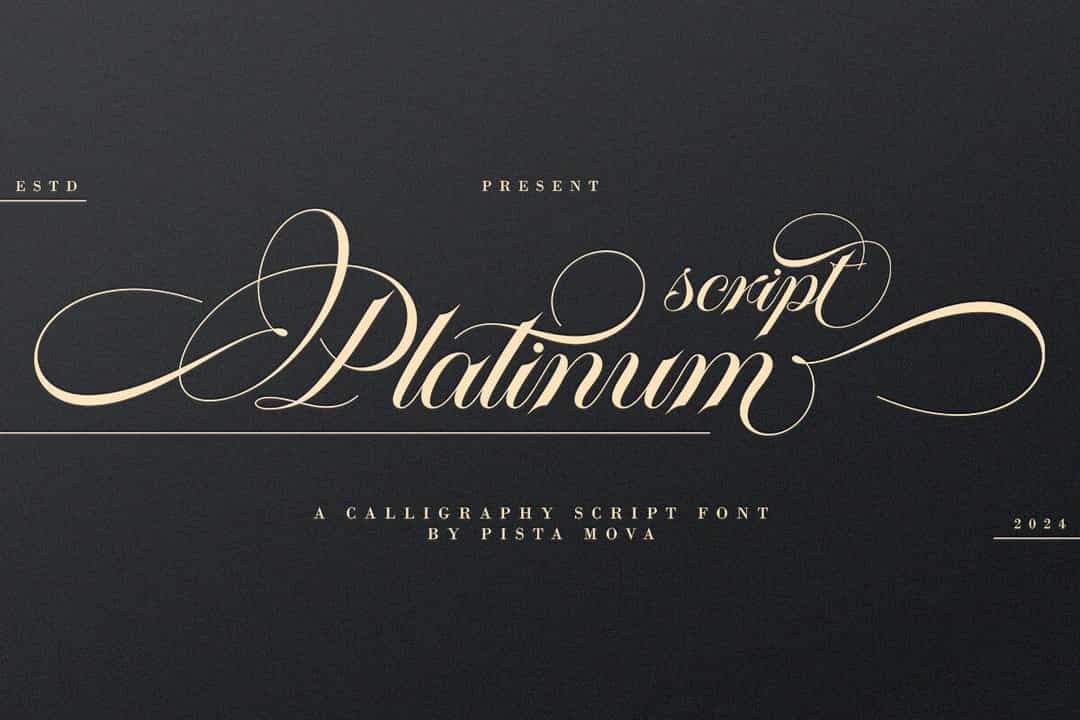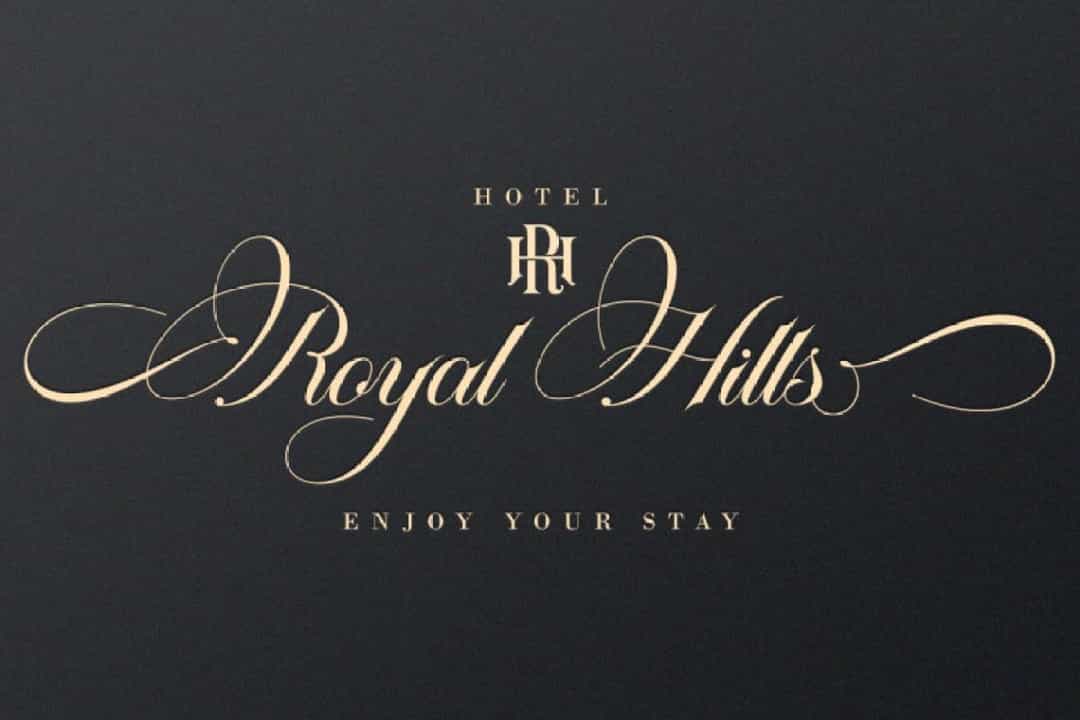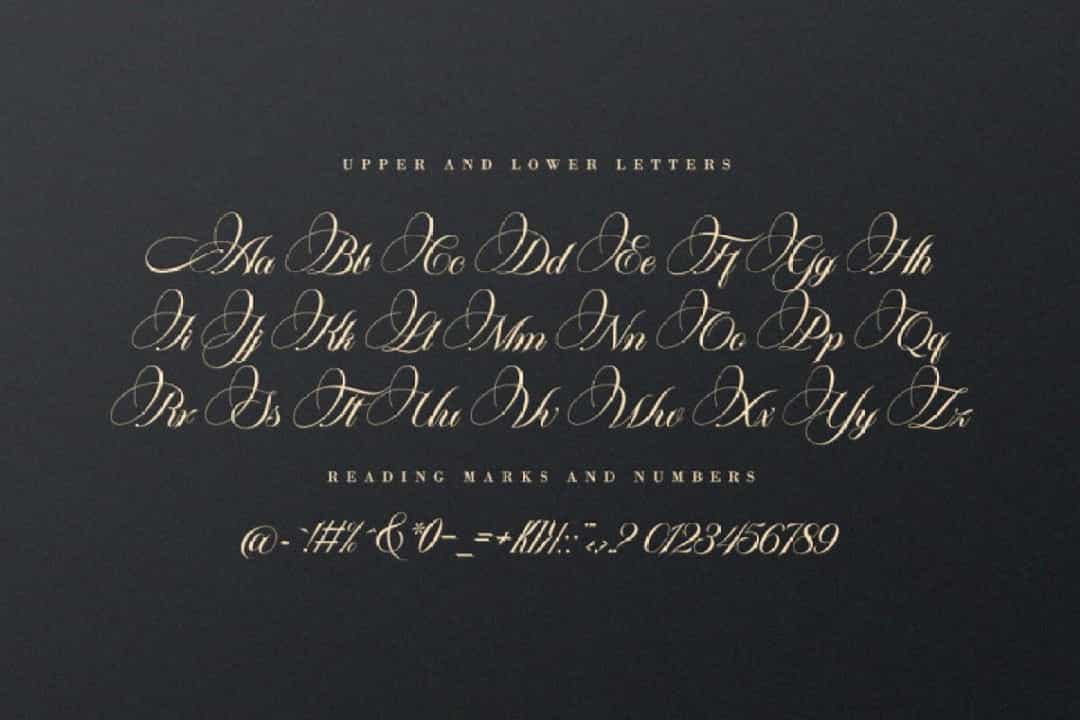
Discover Platinum Font, part of the Calligraphy collection—a versatile and unique font perfect for adding a personal touch to your projects. Download it for free and enjoy crafting designs with style, from invitations to social media posts. This font is available exclusively for personal use, giving you the freedom to create without limits. Unlock your creativity with Platinum Font today!
Platinum is a sophisticated yet soft typeface for writing that was created using an easy and relaxed hand. While traditional in feel, its modern elements make it suitable for wedding-related media as well as book covers and greeting card logos; corporate business cards; certificates; or any design which demands elegant sophistication formality or elegance.